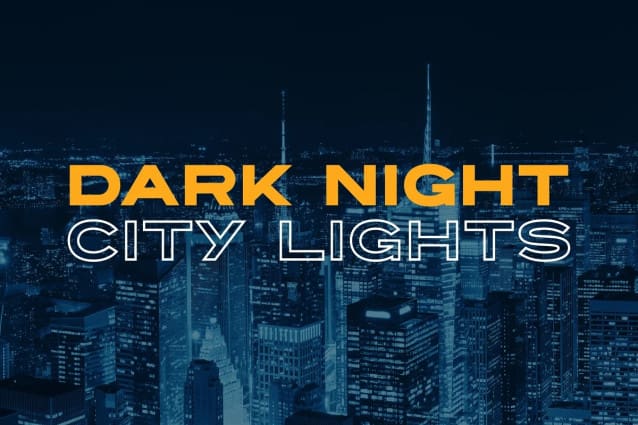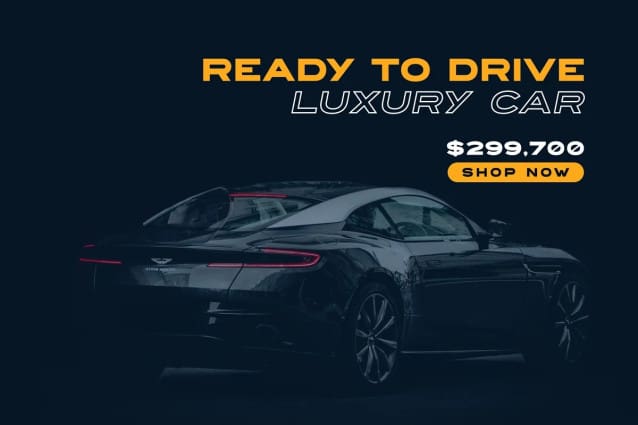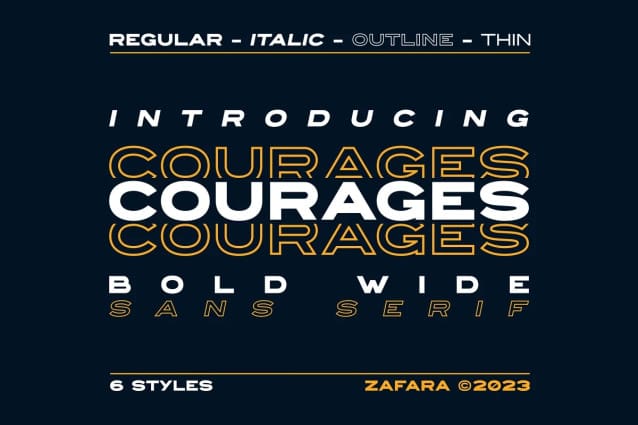
Courages Font
Courages Font is a font with thick and wide strokes. This font can be used for headlines, titles, logotypes, magazines, and other types of text that need to be visible and easy to read. This font can also be used to create a sense of impact or drama in a design.